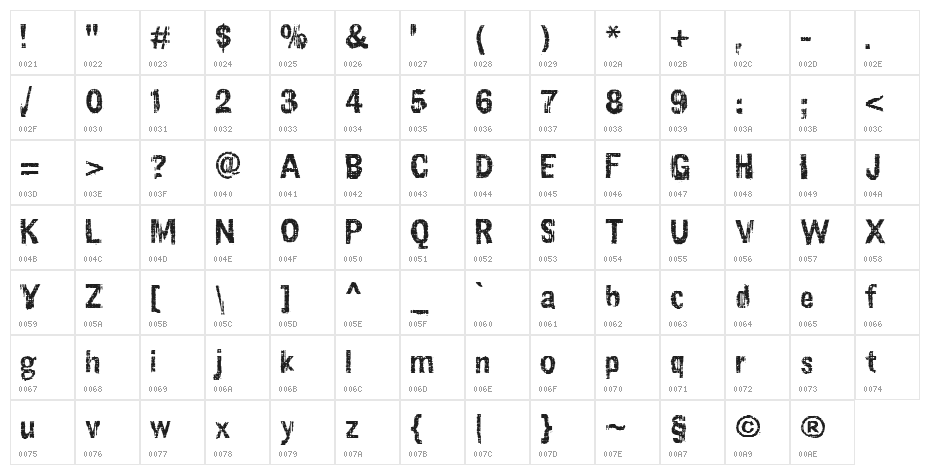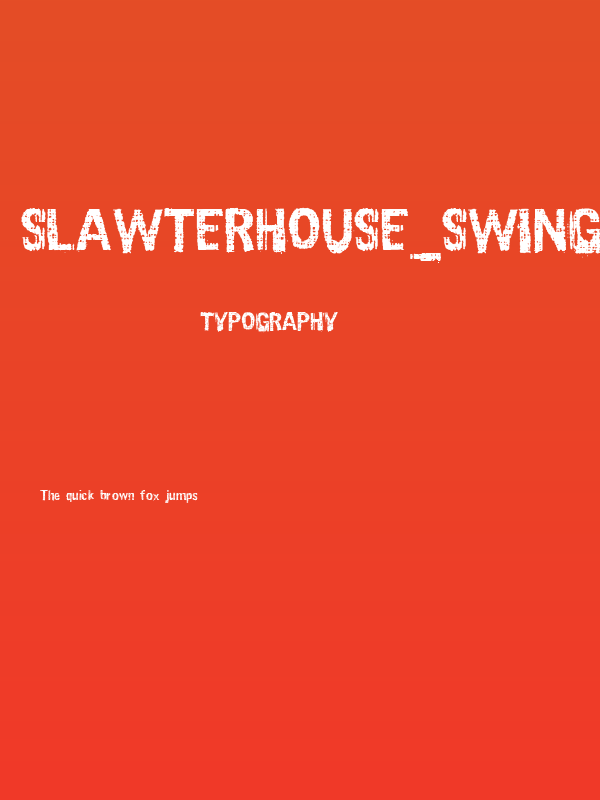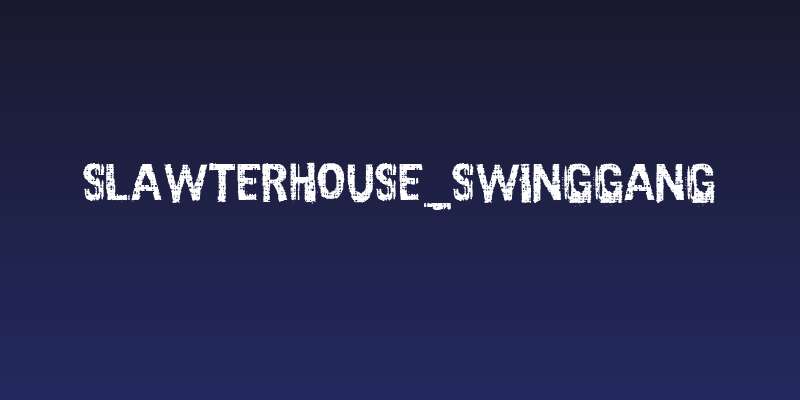
Slawterhouse_Swinggang Font
Slawterhouse_Swinggang Description
This font features a distressed, grunge style with a textured appearance that gives it a worn, vintage feel. The characters are bold and impactful, with irregular edges and a rough finish that adds to its rugged aesthetic. The uppercase and lowercase letters maintain a consistent style, while the numerals and special characters follow the same distressed pattern. The overall look is reminiscent of old, weathered signage or print, making it ideal for projects that require a touch of nostalgia or an edgy, urban vibe.
| Proposed Projects | Ideal for music album covers, posters, branding for alternative or retro-themed events, and any design needing a gritty, textured look. |